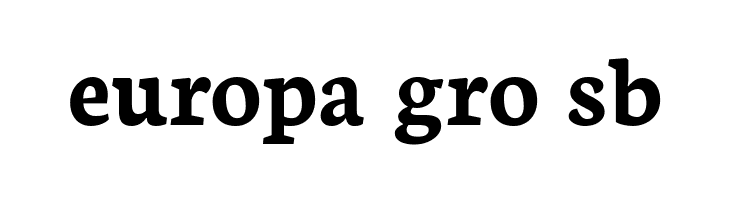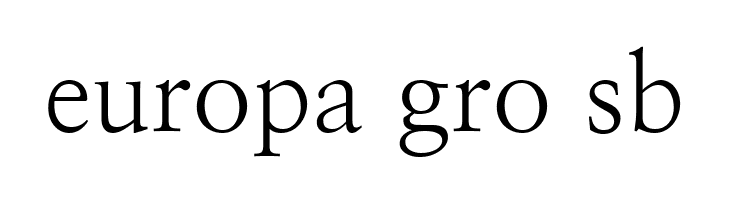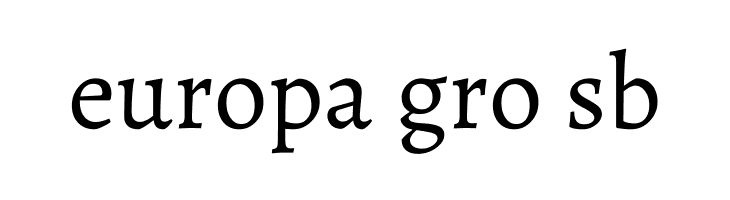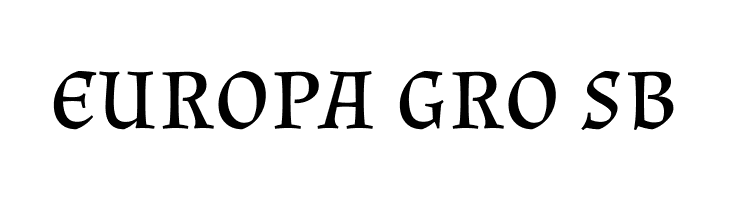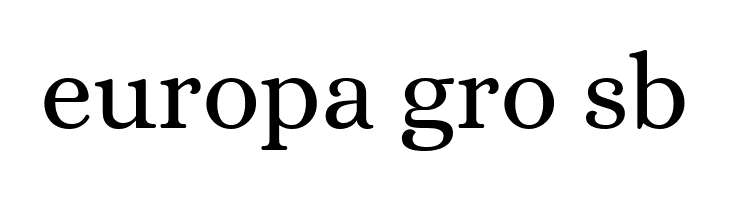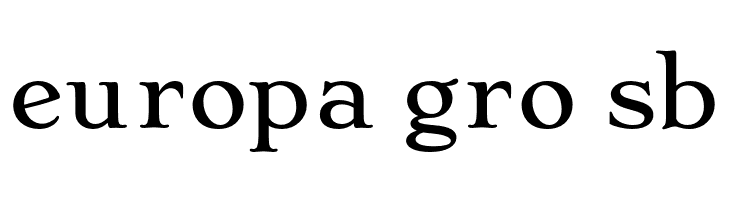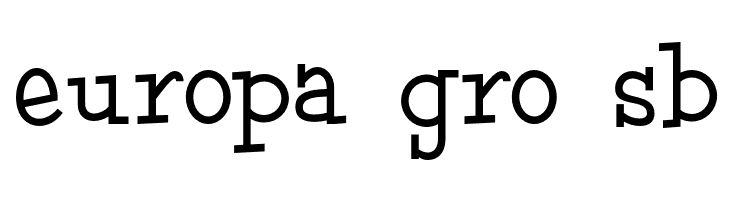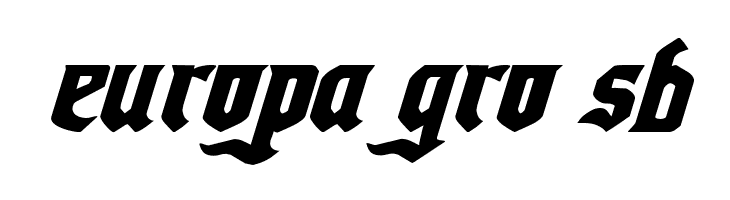
A classic serif font with elegant, traditional features and pronounced serifs.
A bold, classic serif typeface with strong strokes and elegant serifs.
A classic serif font with elegant, refined strokes and balanced proportions.
A dynamic serif typeface with a blend of traditional elegance and modern style.
A classic serif font with elegant, calligraphic influences and ornate details.
A classic serif font with elegant strokes and balanced proportions.
A classic serif font with elegant strokes and moderate contrast, ideal for refined and sophisticated designs.
A playful serif font with a blend of traditional and modern elements.
A bold, italicized font with a modern twist on traditional blackletter styles.